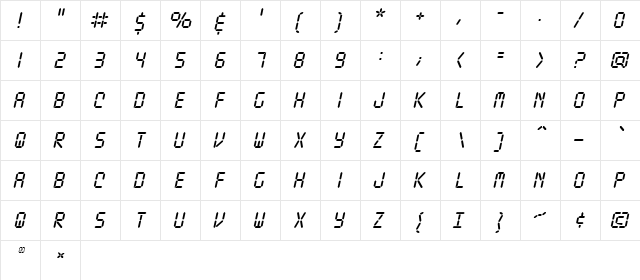
Ticking Timebomb BB Italic
Ticking Timebomb BB is a composed and adaptable typeface that performs quietly and consistently across a wide range of design contexts. Its italic angle brings a sense of urgency and motion to the letterforms.
Pro Tip: Use Ticking Timebomb BB for emphasis, pull quotes, and subheadings where its slanted energy can add rhythm to the layout.